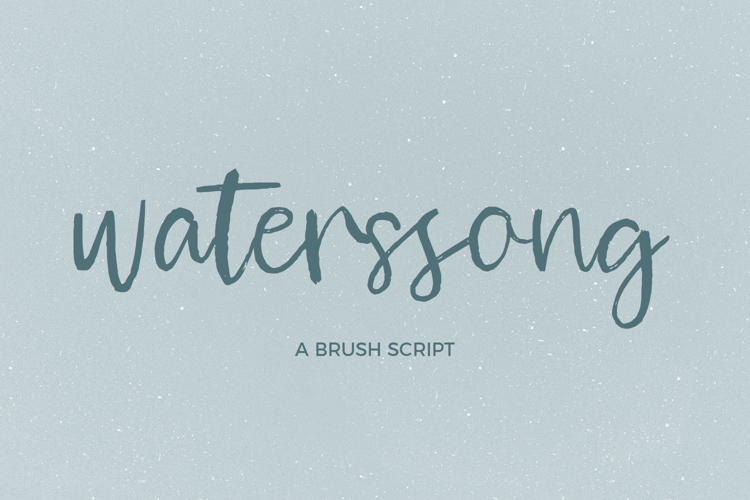
Introducing Waterssong Brush Script - a note-taking style script, slightly textured.
**Waterssong Brush Script** is an excellent fit for:
- logos & branding with a modern twist
- website headings & titles
- quote graphics
- any project needing a legible, but handwritten, font
**Waterssong Brush Script** includes:
- 26 lowercase alternates
- 32 ligatures: al, ar, as, bb, ch, dd, ee, el, er, es, ff, fl, gg, gl, il, ir, is ll, mm, nn, ol, oo, or, os, pp, rr, ss, th, tt, ul, ur, us